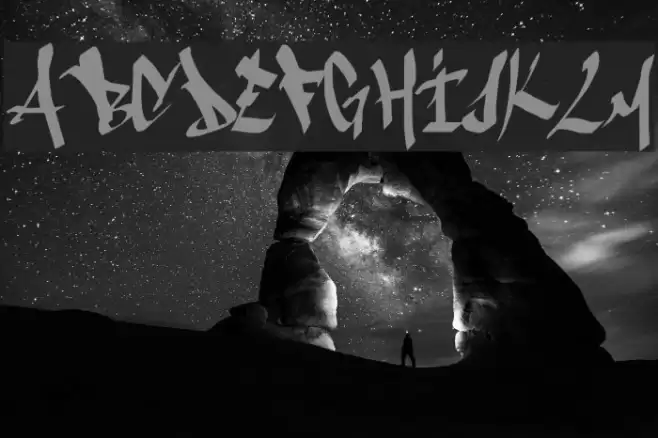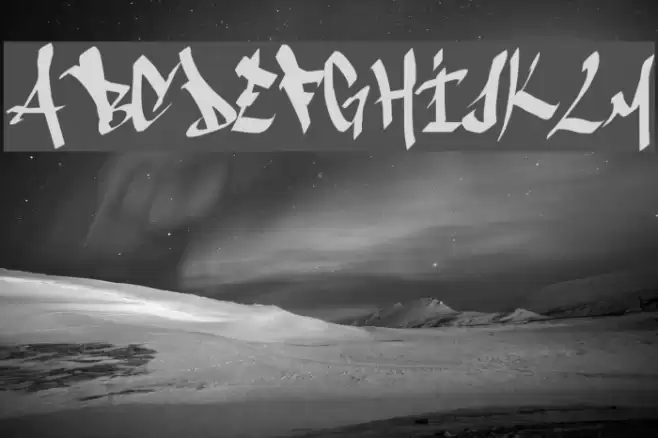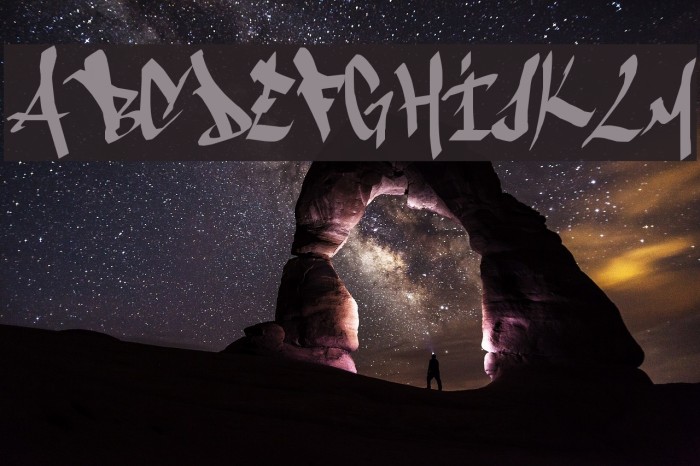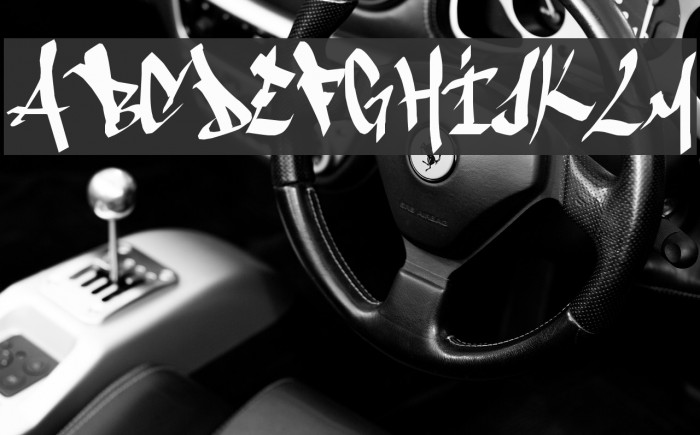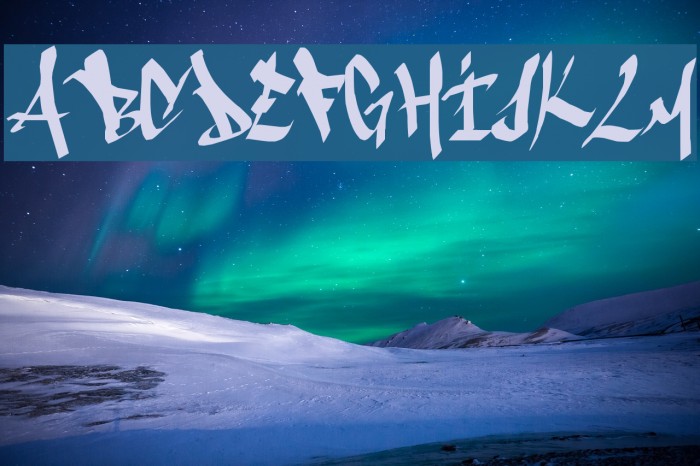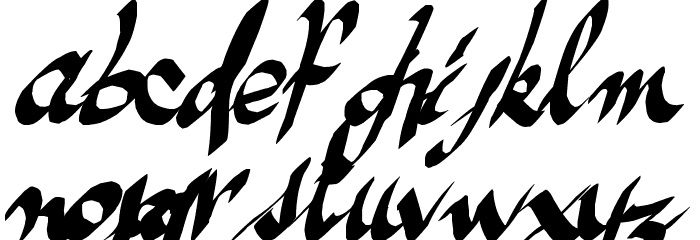
ameze'sfont Font
ameze'sfont Description
This font exhibits a bold and dynamic style, characterized by sharp, angular strokes and a sense of movement. The uppercase letters are particularly striking, with exaggerated curves and pointed edges that create a sense of urgency and energy. The lowercase letters maintain this dynamic quality, though they are slightly more restrained, offering a balance between readability and artistic flair. The numbers and special characters follow the same design principles, ensuring consistency throughout. This font is ideal for projects that require a strong visual impact and a modern, edgy aesthetic.
A bold, dynamic font with sharp, angular strokes and a sense of movement from Graffiti fonts.
- Proposed Projects: Ideal for branding, posters, album covers, and any project needing a strong visual impact.
- Character Spacing: Tight